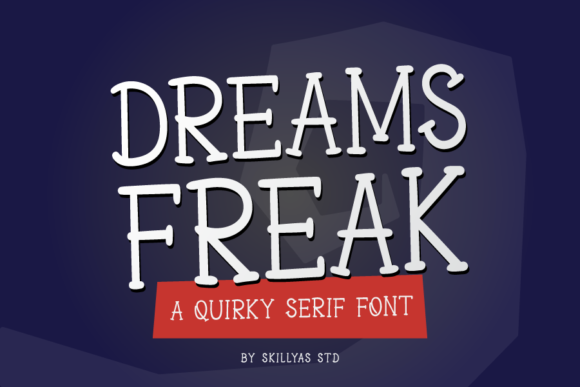
Dreams Freak Font: Unleash Your Creativity with this Whimsical Hand-Lettered Serif Font
Are you tired of using the same old fonts for your designs? Do you want to add a touch of whimsy and fun to your poster designs, t-shirt designs, banner designs, and quotes? Look no further than the Dreams Freak Font! This hand-lettered serif font is designed to bring a fun and freaky mismatched feel to your designs, making them stand out from the crowd.
What Makes Dreams Freak Font So Special?
- Hand-Lettered Serif Font: Dreams Freak Font is a carefully crafted hand-lettered serif font, giving it a unique and personal touch.
- Fun and Freaky Mismatched Feel: The font’s mismatched feel adds a playful and whimsical touch to your designs, making them perfect for creative projects.
- Whimsical Designs: With Dreams Freak Font, you can create a wide range of whimsical designs, from playful posters to quirky t-shirt designs.
Endless Design Possibilities with Dreams Freak Font
Dreams Freak Font is an incredibly versatile font that can be used for a wide range of design projects. Here are some ideas to get you started:
- Poster Designs: Create eye-catching posters for events, concerts, or festivals with Dreams Freak Font.
- T-Shirt Designs: Design quirky and fun t-shirts with Dreams Freak Font that are sure to turn heads.
- Banner Designs: Add a touch of whimsy to your banner designs with Dreams Freak Font, perfect for parties, celebrations, or promotions.
- Silly Quotes: Use Dreams Freak Font to create humorous and playful quotes that are perfect for social media, greeting cards, or gift tags.
- and much more! The possibilities are endless with Dreams Freak Font!
Tips and Tricks for Using Dreams Freak Font
To get the most out of Dreams Freak Font, here are some tips and tricks to keep in mind:
- Experiment with Colors: Dreams Freak Font looks great in bold and bright colors, so don’t be afraid to experiment and find the perfect color scheme for your design.
- Mix and Match: Combine Dreams Freak Font with other fonts to create a unique and eye-catching design.
- Play with Size: Dreams Freak Font can be used at a variety of sizes, from small and subtle to large and bold.
The Benefits of Using Dreams Freak Font
So why should you choose Dreams Freak Font for your design projects? Here are just a few benefits:
- Unique and Eye-Catching: Dreams Freak Font is a one-of-a-kind font that will make your designs stand out from the crowd.
- Versatile: Dreams Freak Font can be used for a wide range of design projects, from posters and t-shirts to banners and quotes.
In conclusion, Dreams Freak Font is a unique and versatile hand-lettered serif font that is perfect for creative design projects. With its fun and freaky mismatched feel, Dreams Freak Font is sure to add a touch of whimsy and fun to your designs. Whether you’re a designer, artist, or simply a DIY enthusiast, Dreams Freak Font is a must-have font for your design arsenal.